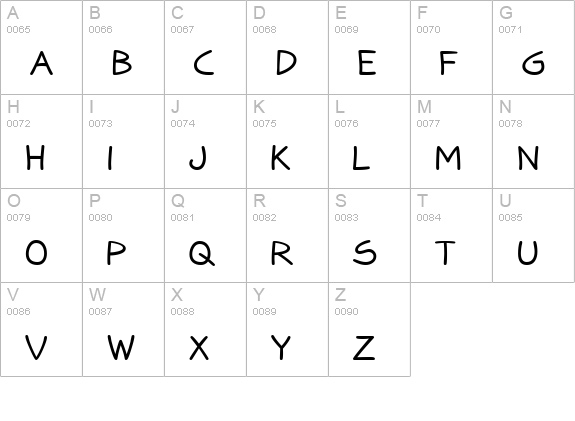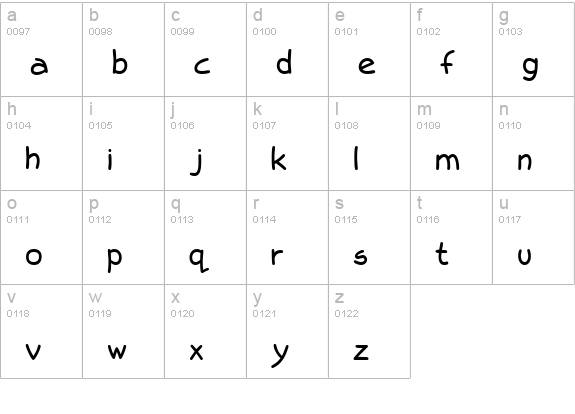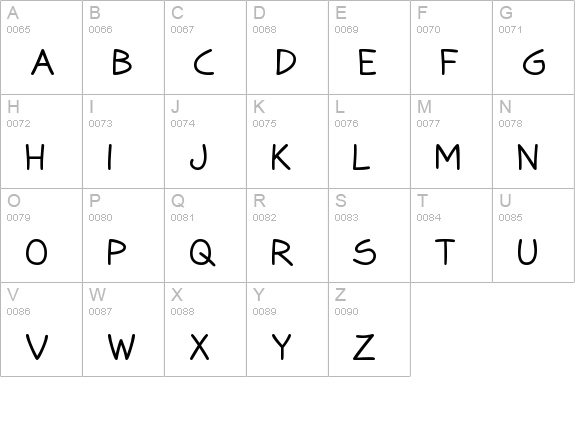
Loose Cruse Font Details
Loose Cruse font is a playful and whimsical typeface that exudes a carefree and relaxed vibe. Its irregular shapes and uneven strokes give it a handcrafted and organic feel, perfect for adding a touch of personality to your designs. Whether you're creating greeting cards, posters, or branding materials, Loose Cruse font will bring a sense of fun and spontaneity to your projects. Best of all, Loose Cruse font is available for free download at FontsMarket.com. You can easily access this charming font and incorporate it into your creative endeavors without any cost. Embrace the freedom of expression with Loose Cruse font and let your creativity flow effortlessly.